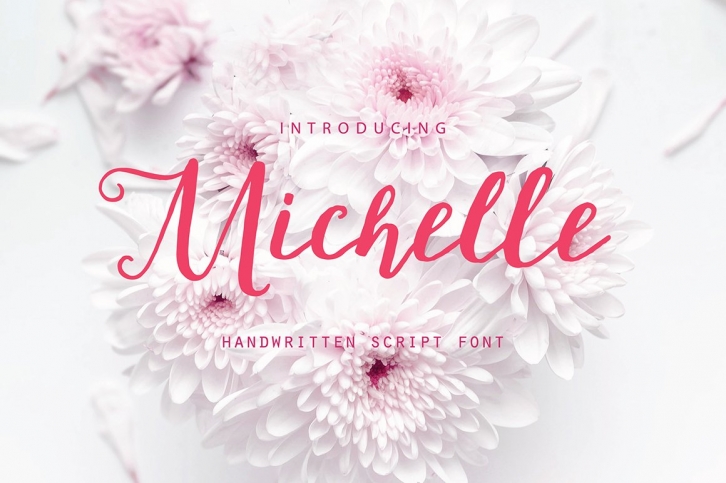
I introduce romantic, a little playful and elegant Michelle script font , allowing you to create beautiful hand-made typography in an instant. With extra contextual gliphs & a big set of ligatures and a full set of lowercase alternates this gives you the option to completely switch the style of your font at the click of a mouse.
Michelle is guaranteed to make your text stand out - perfect for logos, t-shirt design, wedding cards & save the dates, recipes and cooking books, monograms, printed quotes, invitations, cards, product packaging, headers and whatever your imagination holds.
Another great feature is the bonus Doodle font, which allows you to add some really unique finishing touches to your script text.